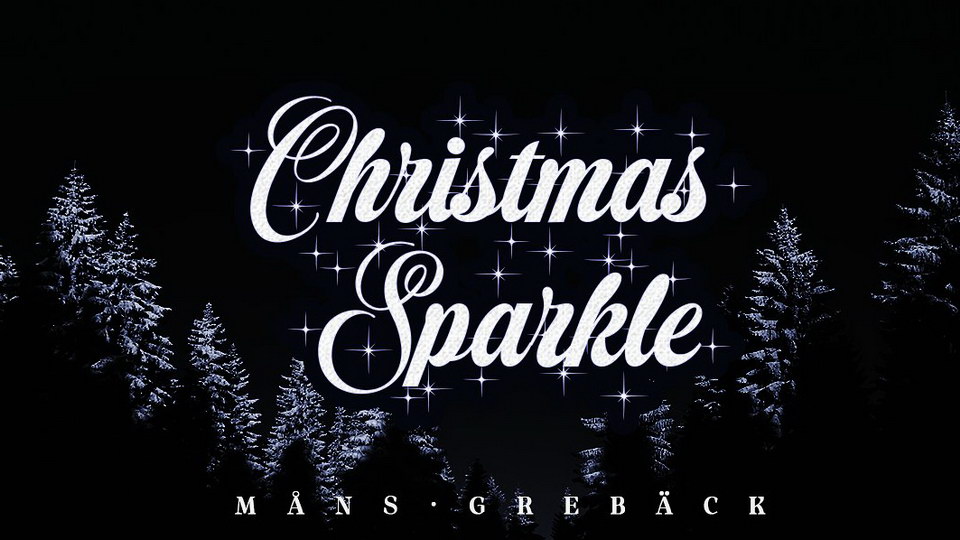
Feb 14, 2025Script & HandwrittenChristmas Sparkle Script Christmas Sparkle is a decorative Christmas font that brings a spark to any Christmas themed project. It contains stylistic and contextual alternates, and supports all European Latin-based languages. Font DetailsDesigned by: Måns GrebäckWebsiteLicense: Free for personal use Download Christmas Sparkle ScriptFile size: 59.72 KBCreated: February 16, 2025Updated: February 16, 2025 Download Explore similar fonts Maison Des Pastel Script Font Campana Script Font Holland Script Font Floravine Romantic Font Dreamy Romance Font Duo Wolington Font # Bold# Calligraphy# Christmas# Cursive# Fancy# Handwriting# Holiday# Italic More fonts by Måns GrebäckRopest ScriptFunky Bird FontDattacle FontRespective FontResolide Serif FontStarella ScriptMolly Sans TypefaceJunigarden Font